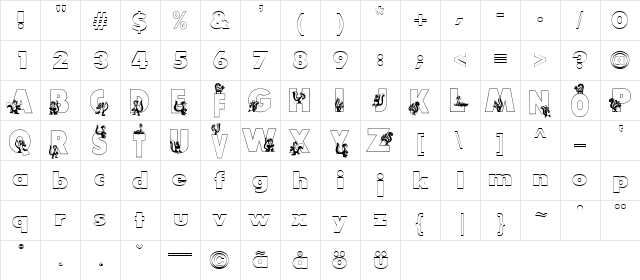
Smelly Regular
Design Context for Smelly Typeface
Smelly is a composed and adaptable typeface that performs quietly and consistently across a wide range of design contexts.